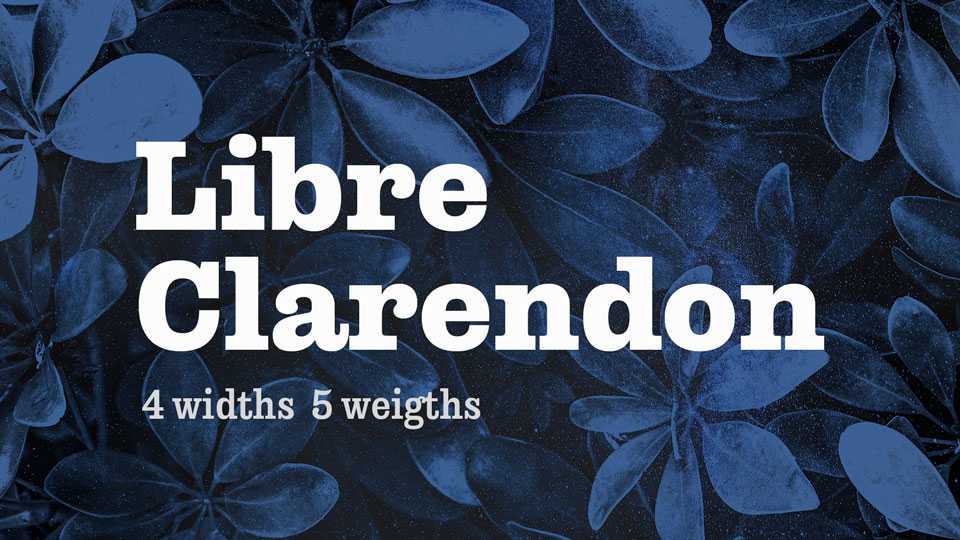
Download Libre Clarendon typeface, an integrated and comprehensive Clarendon family. Libre Clarendon provides a wide and carefully considered range of weights and widths, allowing it to be used for both Text and Display settings, in all kind of layouts.
Designer: Pablo Impallari